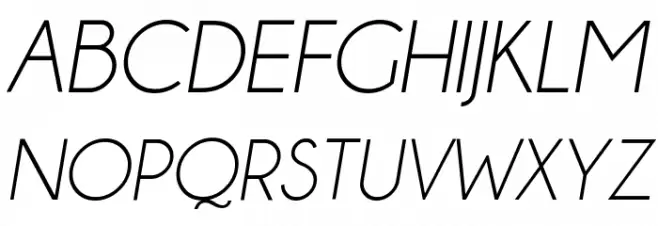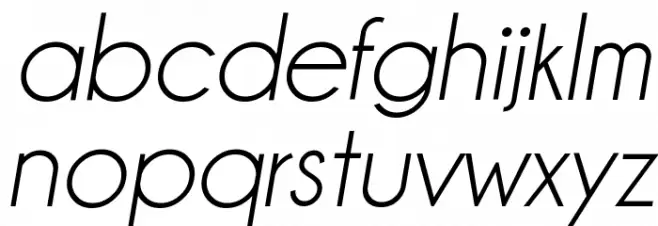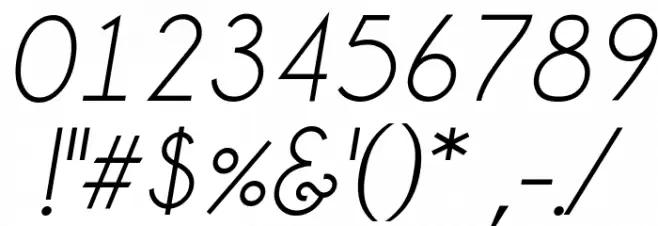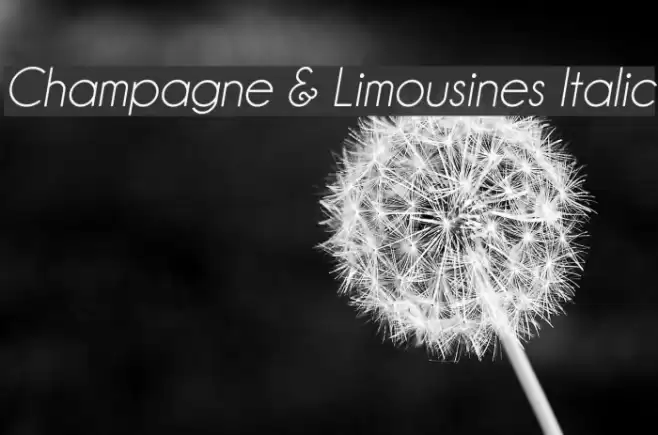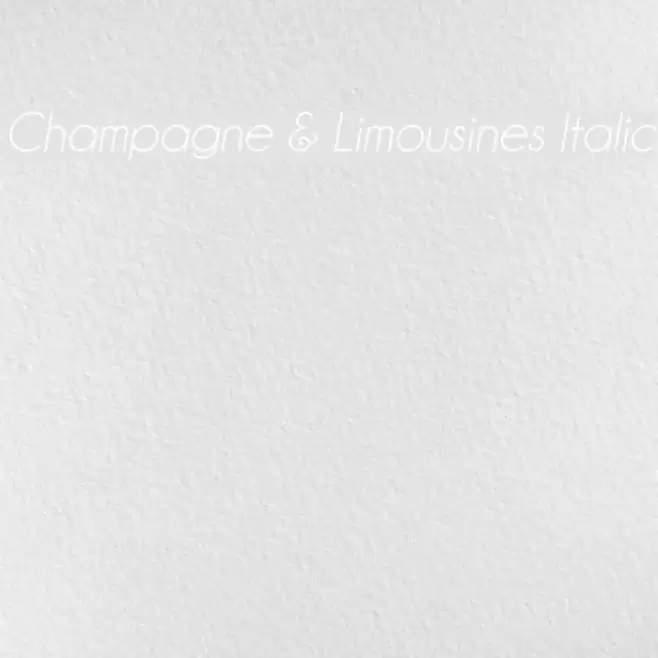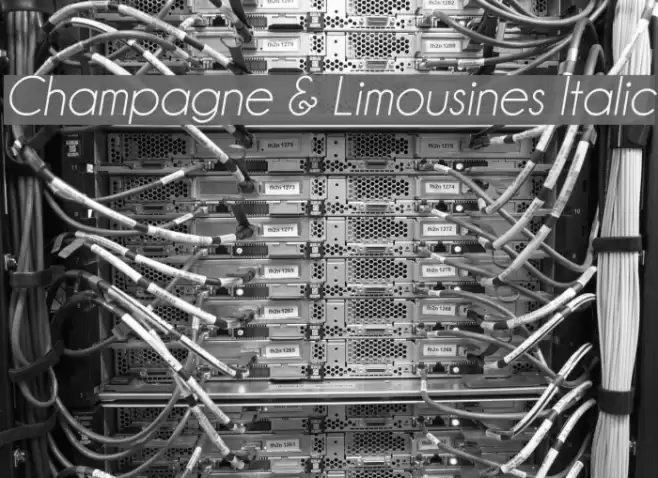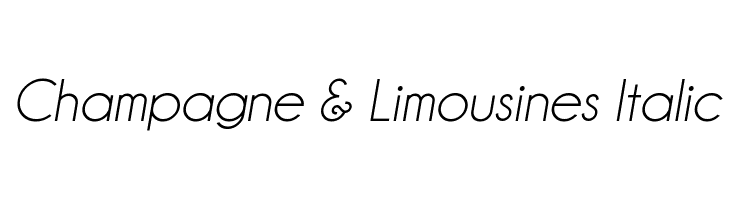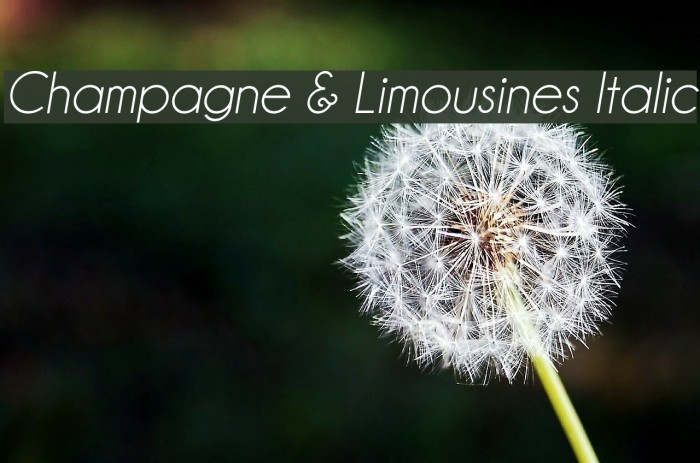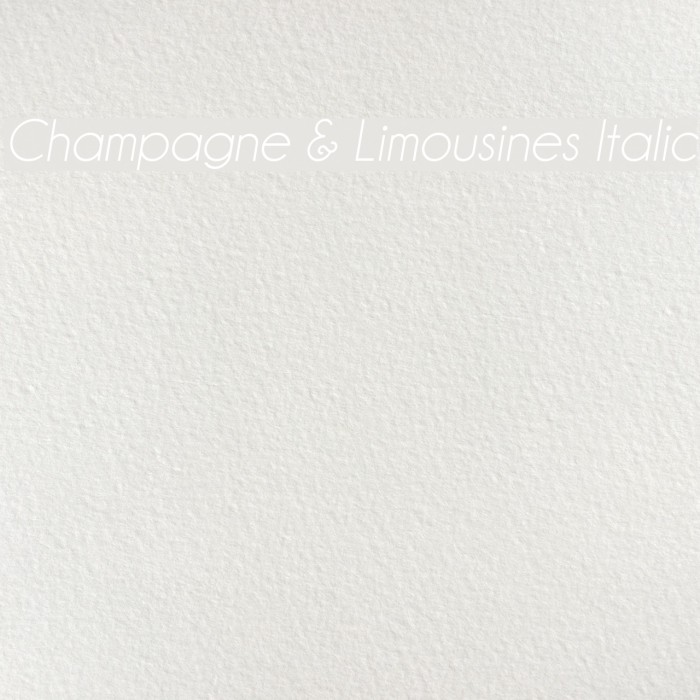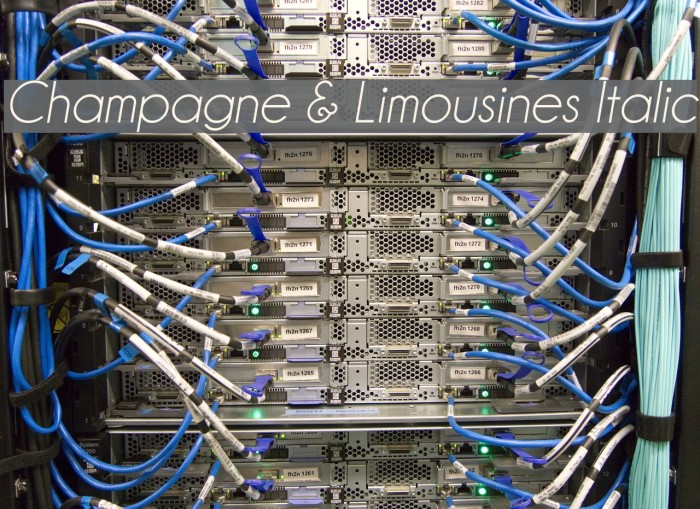
Champagne & Limousines Italic
This font features a sleek and elegant design with a modern twist. The characters are slightly italicized, giving them a sense of motion and fluidity. The strokes are thin and consistent, providing a clean and sophisticated appearance. The uppercase letters are tall and narrow, while the lowercase letters maintain a balanced proportion, enhancing readability. The numerals are straightforward and align well with the overall style, making them suitable for various applications. Special characters are included, maintaining the font's cohesive look. This font is versatile, suitable for both digital and print media, and can be used to add a touch of elegance to any project.
A sleek, elegant italic font with thin strokes and modern appeal.
- Proposed Projects: Ideal for wedding invitations, luxury brand logos, elegant website headers, and high-end product packaging.
- Weight: Light
- Use Case: Logos, Headlines, Invitations